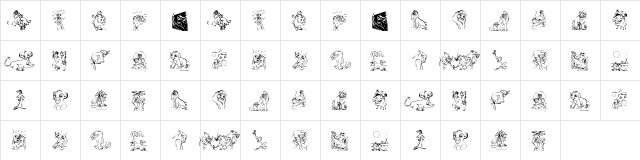
King Lion Regular
Design Context for King Lion Typeface
King Lion is a composed and adaptable typeface that performs quietly and consistently across a wide range of design contexts.